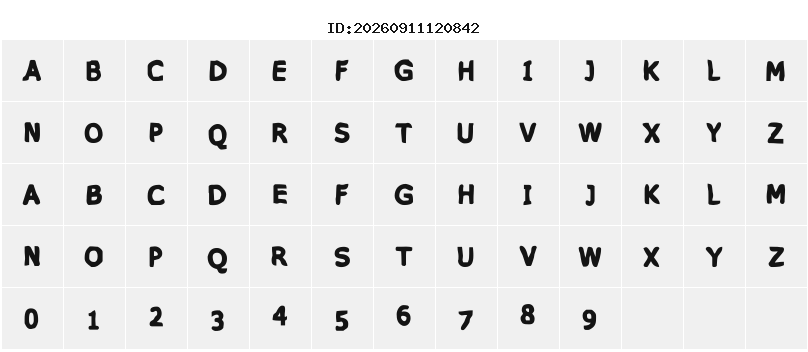
• Font Name: VTC PizzOff
• Font ID: V.T.CVigilanteTypeFaceCorporation: VTC PizzOff Fatty: 2000
• Full Font Name: VTC PizzOff Fatty
• Designer: WolfBainX
About VTC PizzOff.ttf
VTC PizzOff.ttf is a modern, elegant sans-serif font designed for ultimate readability and visual harmony. Perfect for branding, headlines, web design, and print materials.